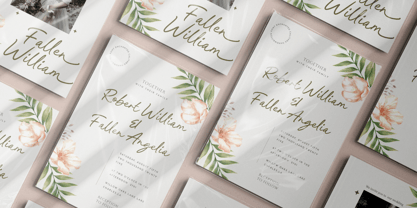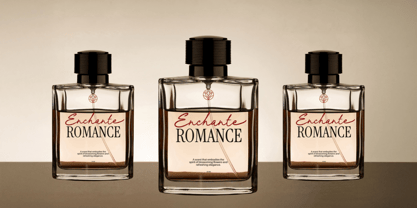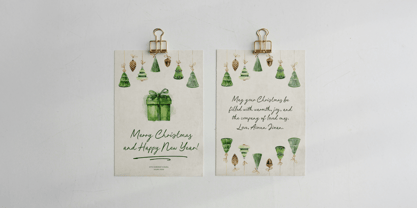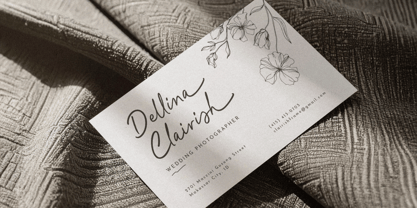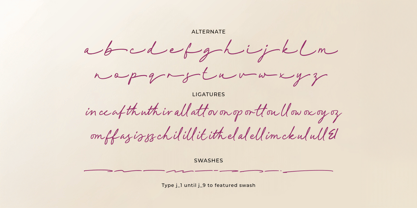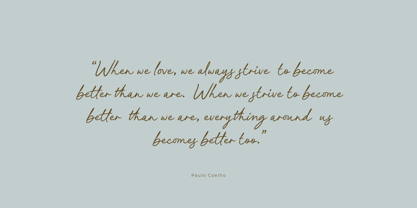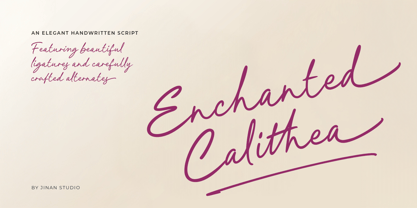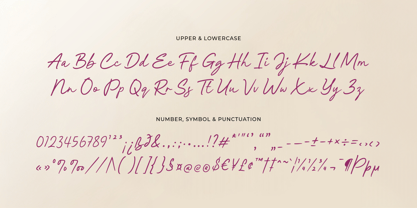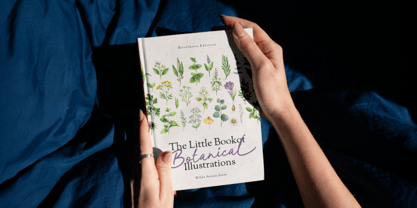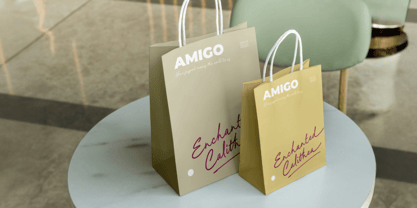
Enchanted Calithea
Die Schriftfamilie Enchanted Calithea wurde von Andi Syahdang, Ainun Jinan entworfen und von Jinan Studio veröffentlicht. Enchanted Calithea enthält 1 Stile. Mehr über diese Familie
Enchanted Calithea is an elegant modern handwritten script that captures a graceful balance between softness and sophistication. Designed with smooth flowing strokes, refined curves, and natural handwriting rhythm, this font brings a timeless charm to every design. Featuring beautiful ligatures and carefully crafted alternates, Enchanted Calithea allows your lettering to feel organic, expressive, and effortlessly stylish. Each character connects seamlessly, creating a luxurious handwritten look that feels personal yet polished. Perfect for branding, wedding invitations, logos, social media, packaging, quotes, and editorial designs, Enchanted Calithea adds a touch of enchantment and class to both minimal and decorative projects. Let your words flow beautifully and leave a lasting impression with Enchanted Calithea.